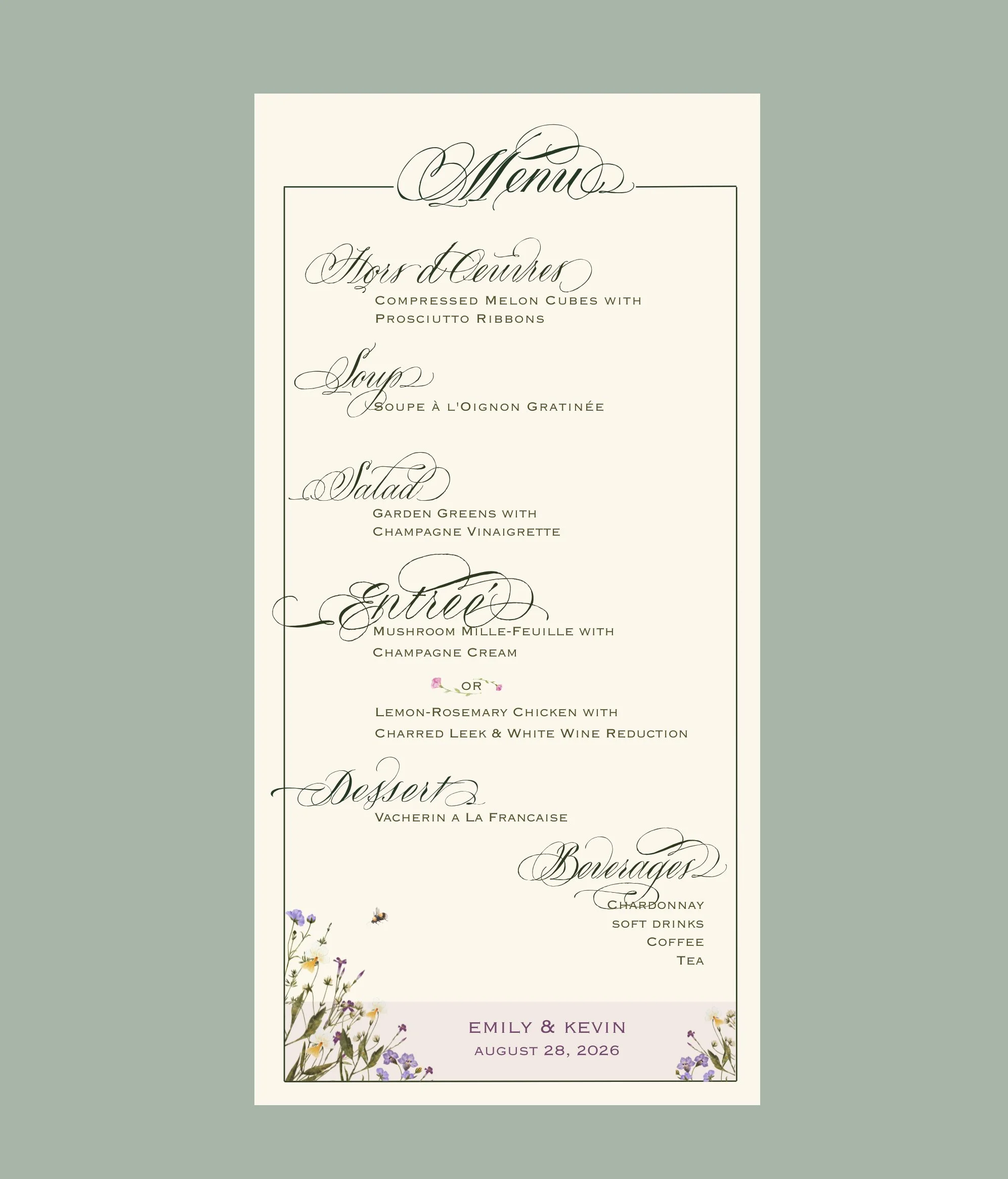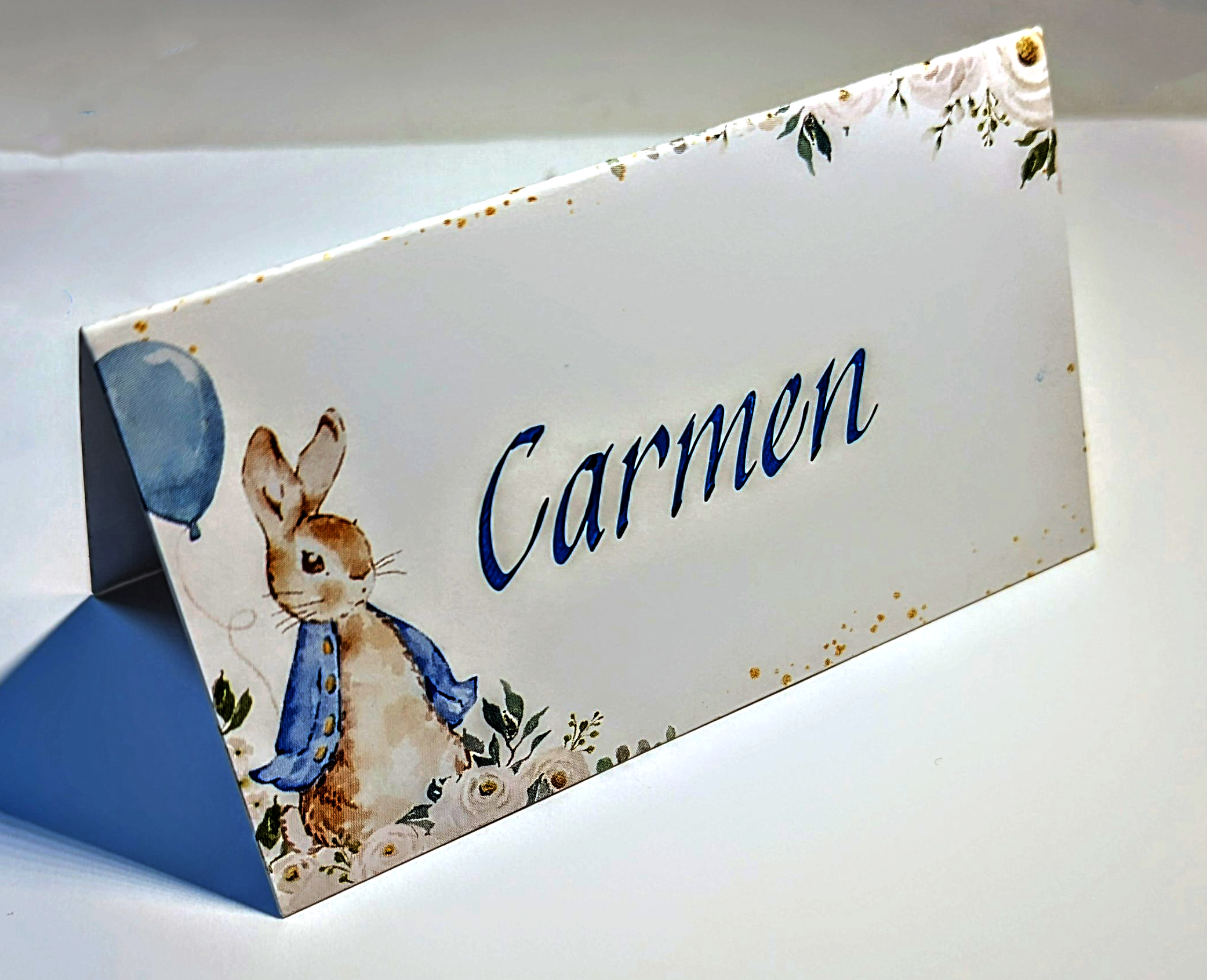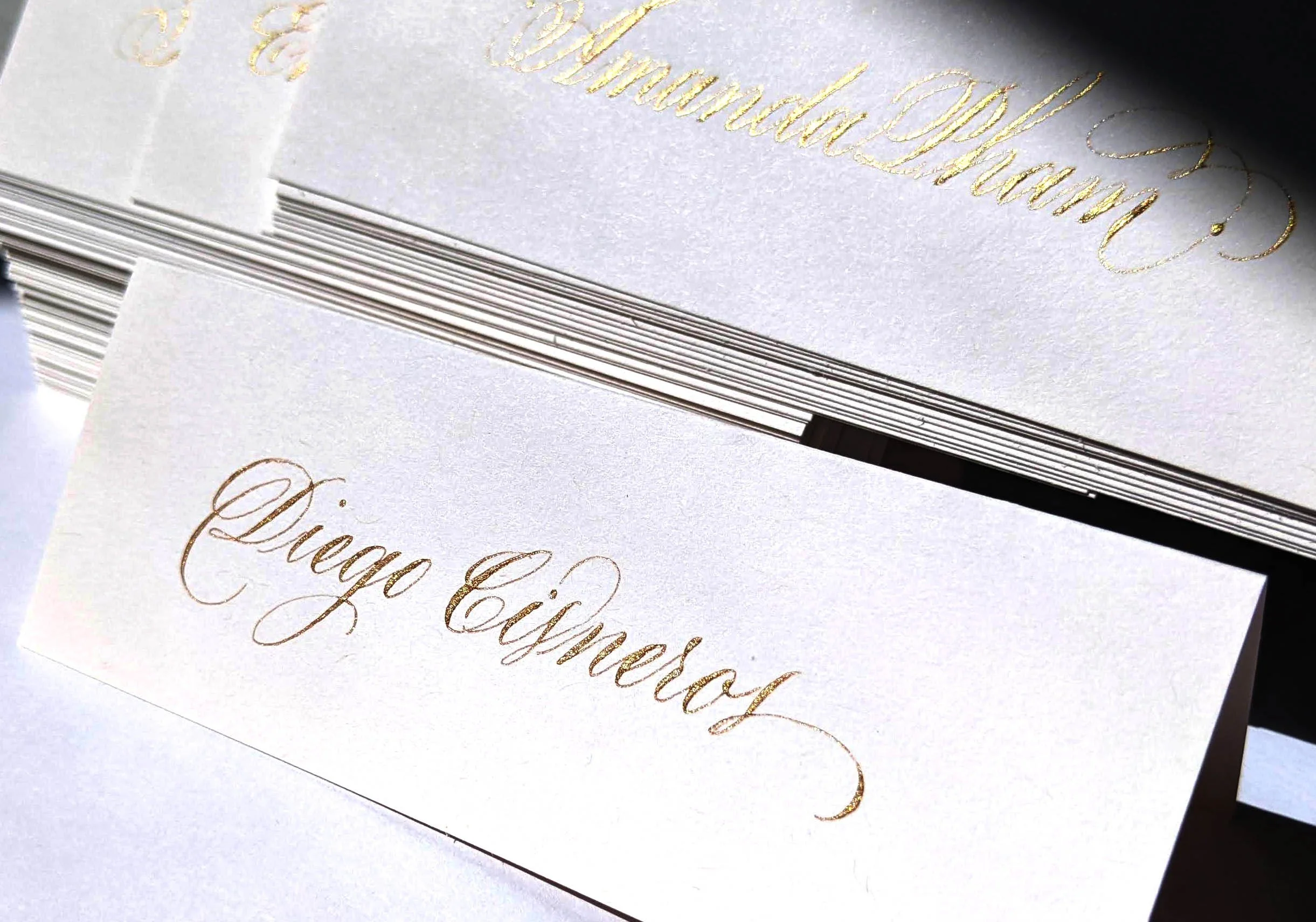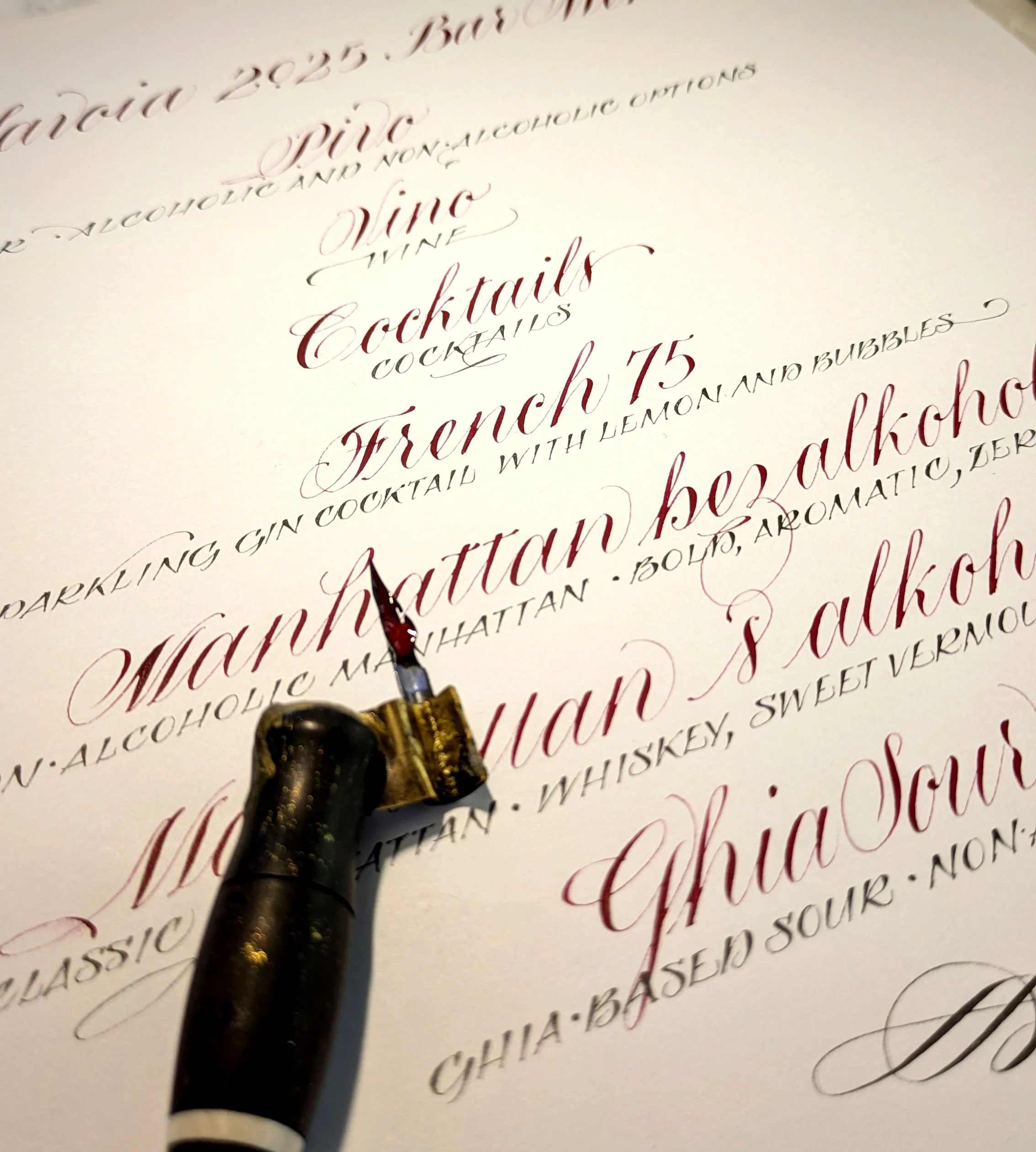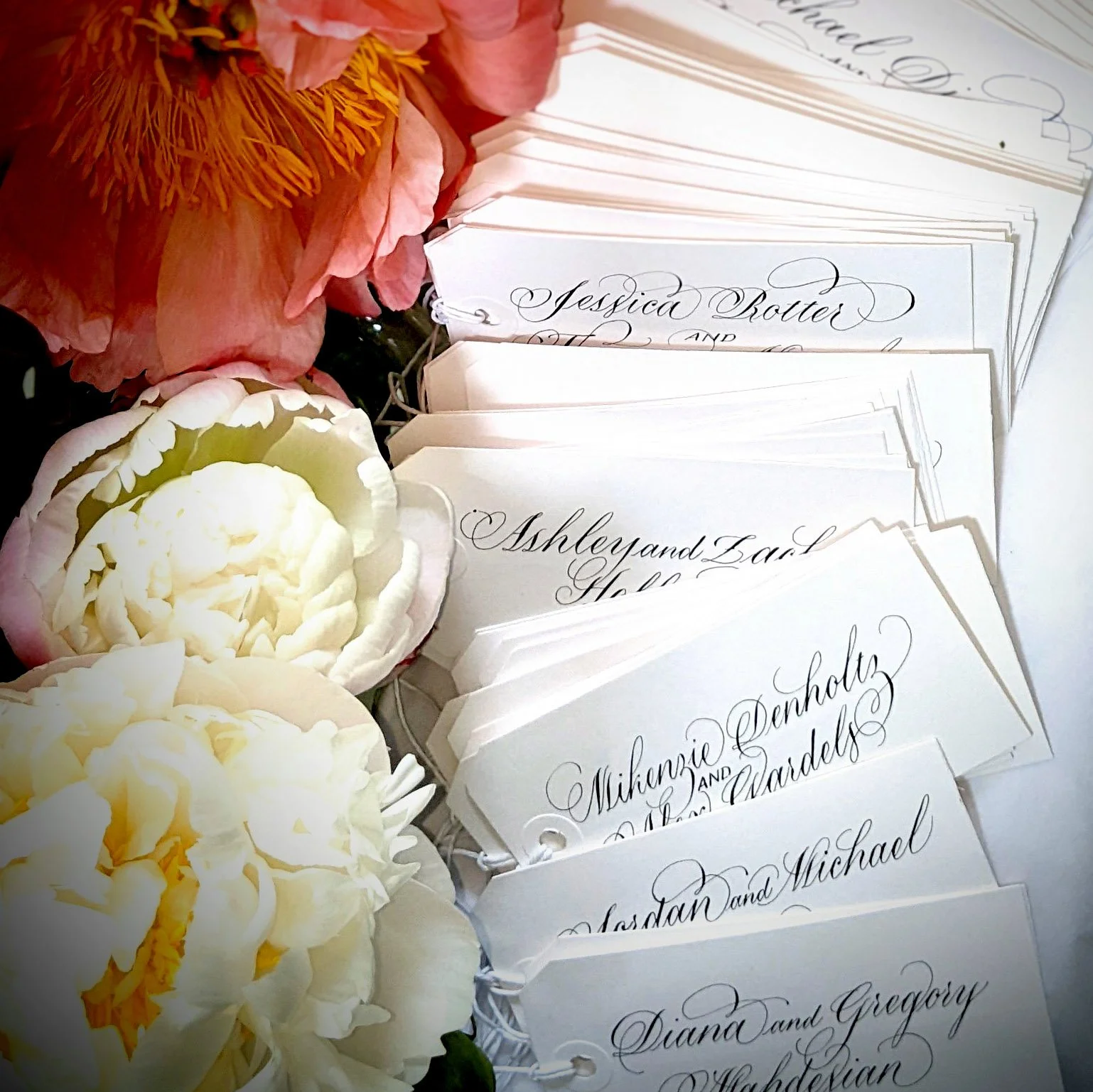
PLACE CARDS, MENU CARDS, SEATING & ESCORT CARDS
Everyone responds positively to seeing their own name.
It’s extra-special to see it professionally lettered on a place card and reserving their seat. Opportunities to personalize are also opportunities for you to leave an impression of caring and consideration.
Holiday dinner place cards.
Even for intimate family-and-friend dinners, well chosen place cards and calligraphy dress up the place settings and amplify your theme and your holiday.
Die-cut place cards can be transformed with a little personalization.
There is a wealth of die-cut place cards on the market that can be economically purchased and leveled up with professional calligraphy.